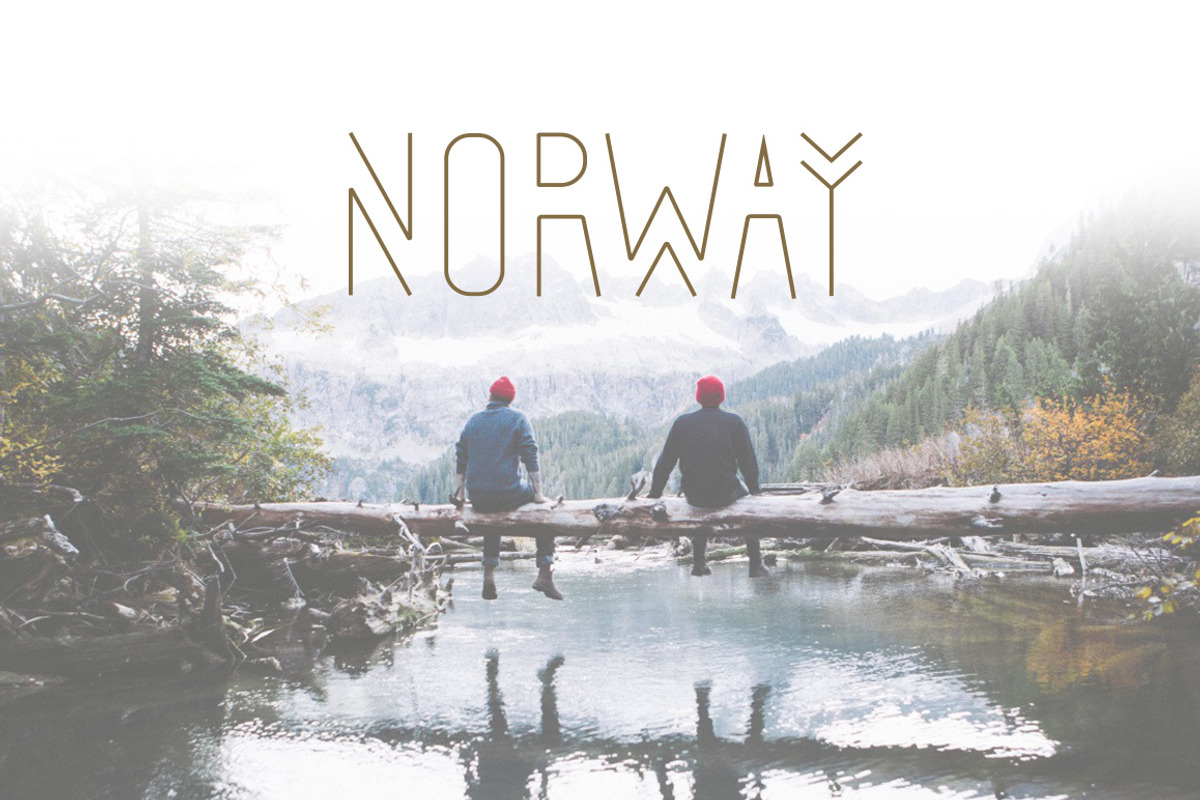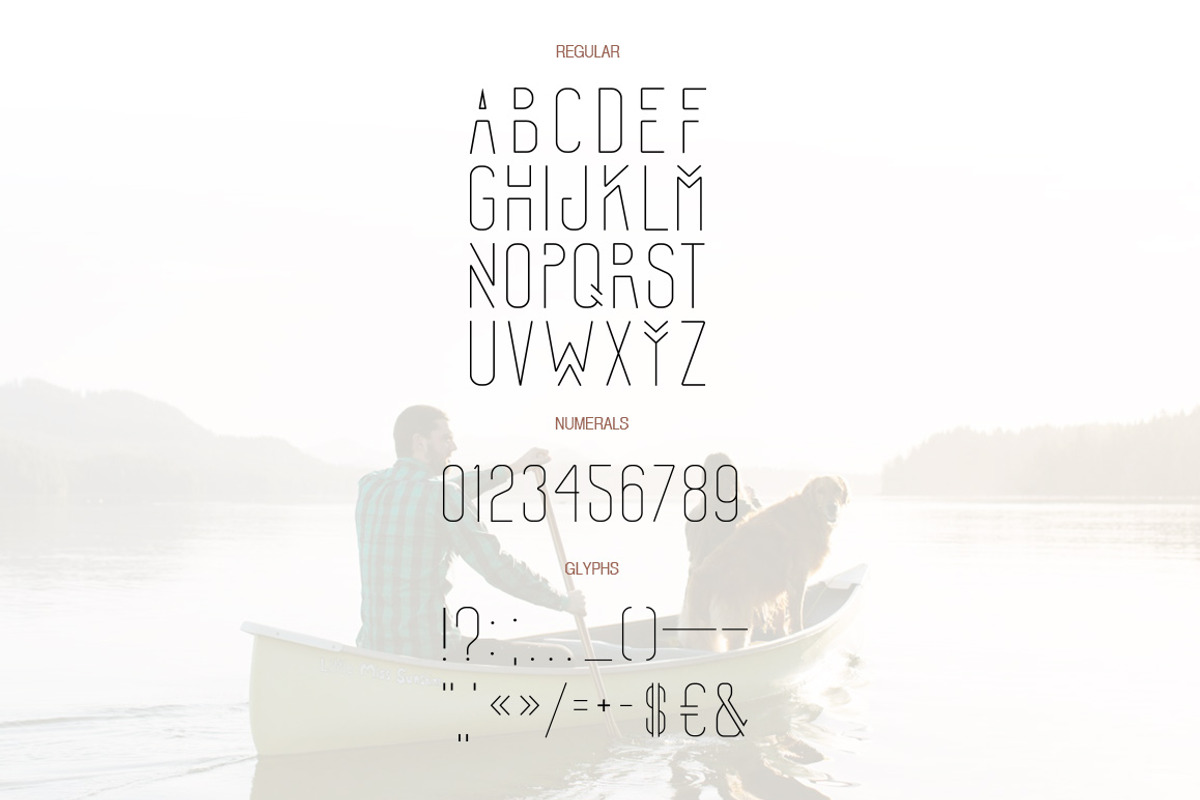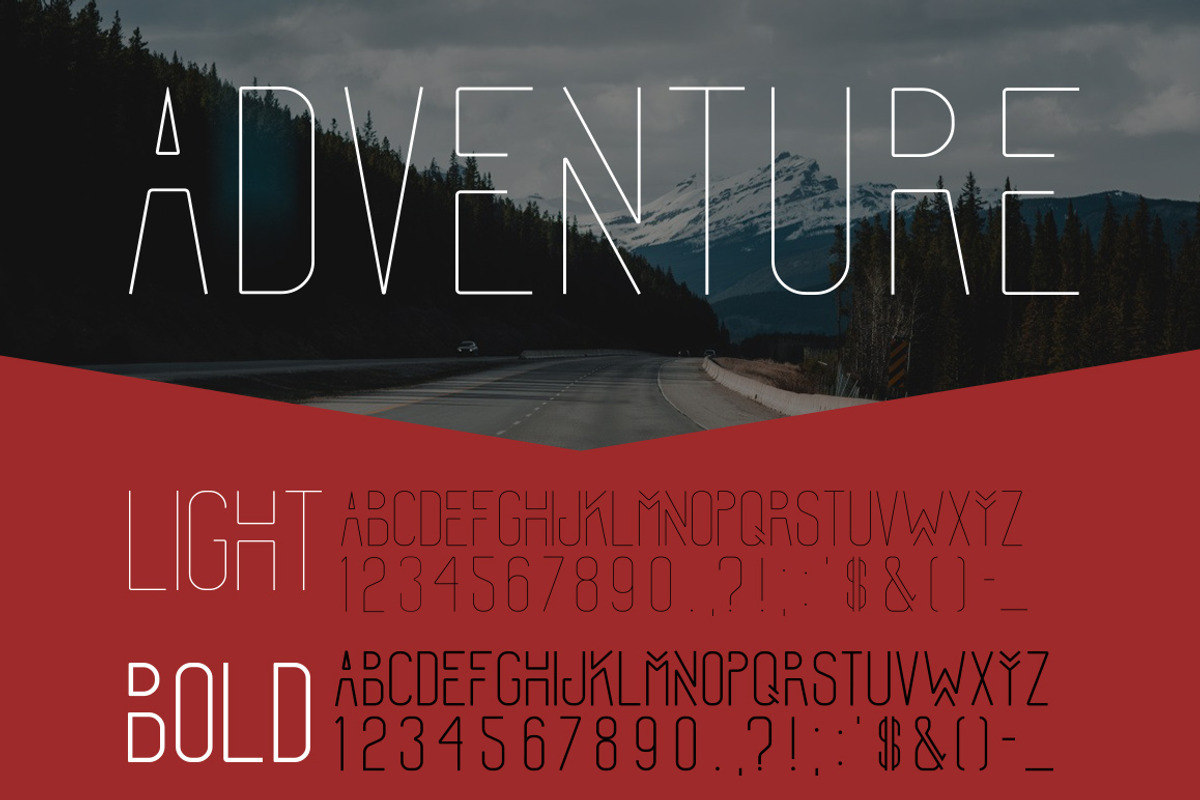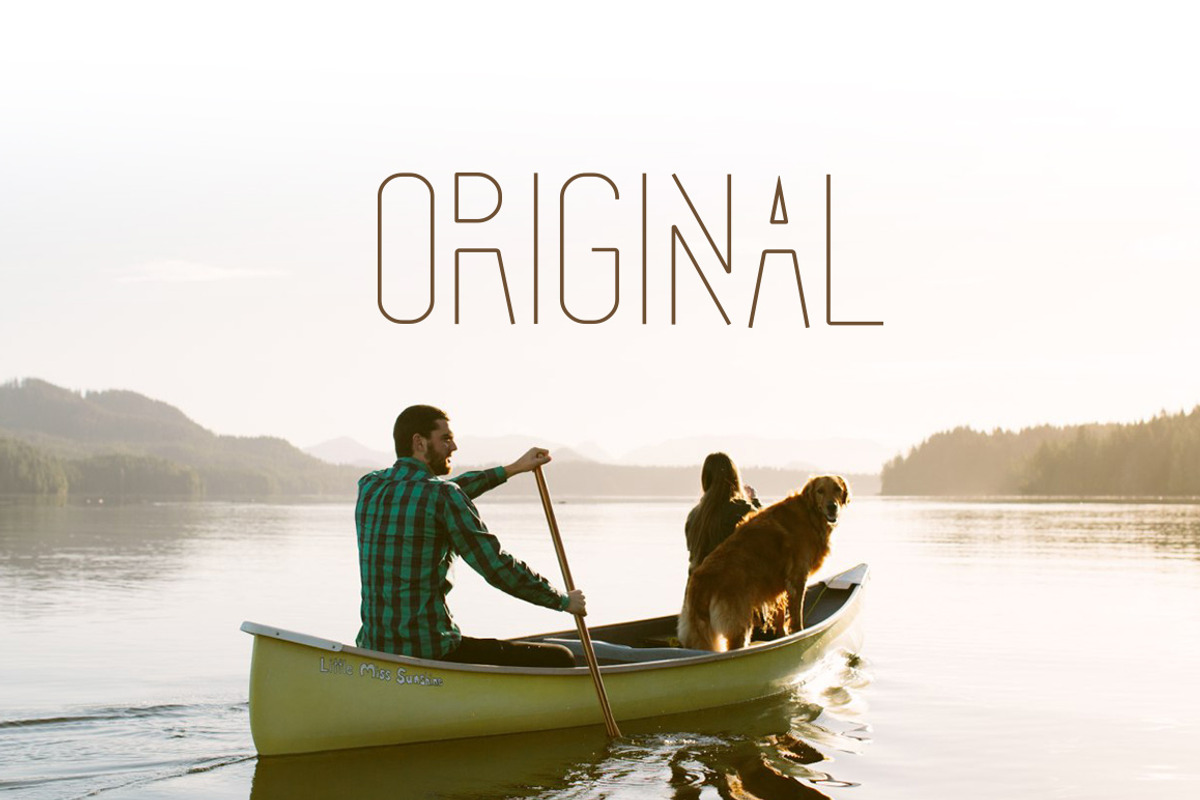
Forest Line Font Condensed
Forest Line Font Condensed by Sentavio is a font selected for branding, posters, packaging, typography.
- Forest Line Light
- Forest Line Regular
- Forest Line Bold
Forest Line Font Condensed by Sentavio fits naturally into Branding, posters, packaging, typography.